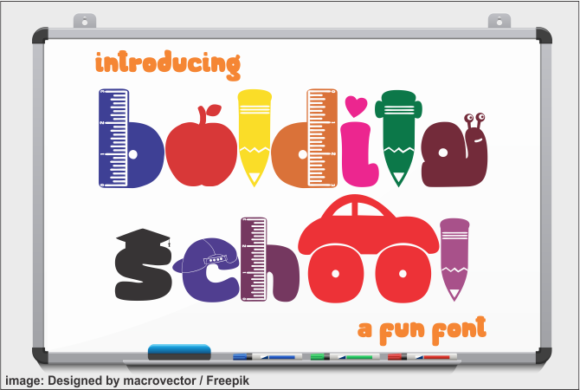
The Joy of Typography: Unleashing the Magic of Boldita School Font
Do you remember the first time you saw a font that made you smile? For me, it was a playful alphabet written in crayon on a child’s drawing. It sparked a sense of wonder and creativity that I still feel today. As designers, we’re always on the lookout for that special something that brings a project to life. And that’s exactly what the Boldita School Font does.
This fun and jolly decorative font is the perfect choice for any children’s activity or school project. Its playful authenticity makes it a valuable addition to any designer’s toolkit. Whether you’re creating a birthday invitation or a educational poster, Boldita School Font adds a touch of whimsy that’s sure to delight. As a designer, you’ll appreciate its versatility and ease of use, making it a go-to choice for any project that needs a little extra sparkle.
Boldita School Font Key Features
- Unique Characteristics: The font features a unique, playful design that is specifically tailored for educational materials, making it an ideal choice for school textbooks, workbooks, and other educational resources.
Boldita School Font Review
I’ve had the chance to work with the Boldita School Font, and I must say it’s a mixed bag. On one hand, it has some great qualities that make it shine. ✨ The font is highly customizable, with a wide range of font sizes and styles that can be easily adjusted. It’s also very easy to read, even at small font sizes, which makes it perfect for educational materials like textbooks and worksheets.
Another thing that works well with Boldita School Font is its versatility. ✨ It comes in a variety of weights and styles, from light to bold, which makes it suitable for a wide range of applications, from headings to body text. It’s also highly legible, even in low-resolution formats like printouts or digital displays.
- ⚠️ Limited font family options: While Boldita School Font has a wide range of styles and weights, it’s still a relatively small font family compared to other popular fonts.
- ⚠️ Not ideal for creative applications: Boldita School Font is primarily designed for educational and professional use, and may not be the best choice for creative projects like design portfolios or marketing materials.
Overall, I’d say that Boldita School Font is a solid choice for educational and professional applications, but may not be the best fit for more creative or design-focused projects. With some tweaks and adjustments, it has the potential to be a top-notch font, but in its current state, it’s more of a middle-of-the-road option.
Boldita School Font is a versatile font that can be used for a variety of purposes, including:
- Creating educational materials, such as worksheets and lesson plans.
- Designing school logos and branding materials.
- Adding a playful touch to presentations and reports.